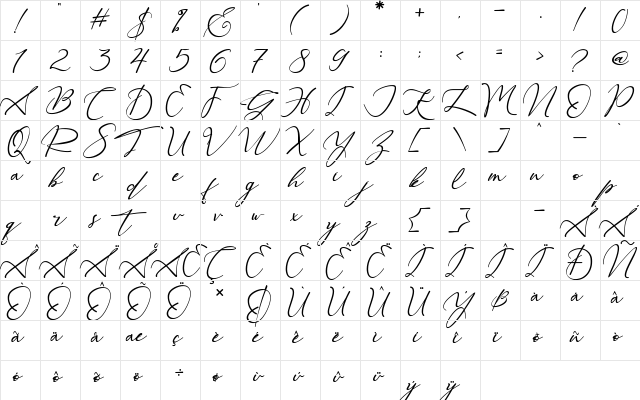
Beautiful Kisses Regular
| Designer | Letterara 2019 |
Design Context for Beautiful Kisses Typeface
Beautiful Kisses is a composed and adaptable typeface that performs quietly and consistently across a wide range of design contexts.